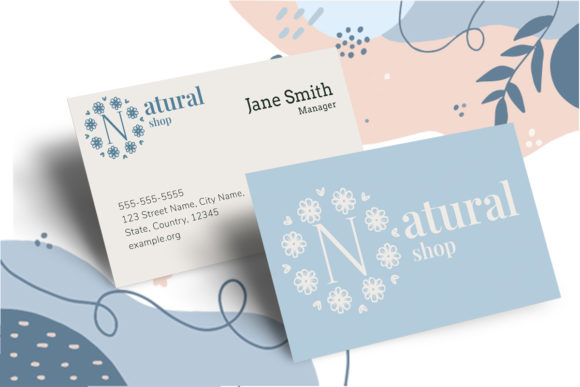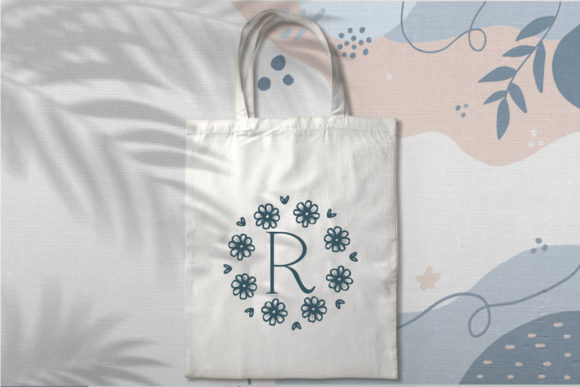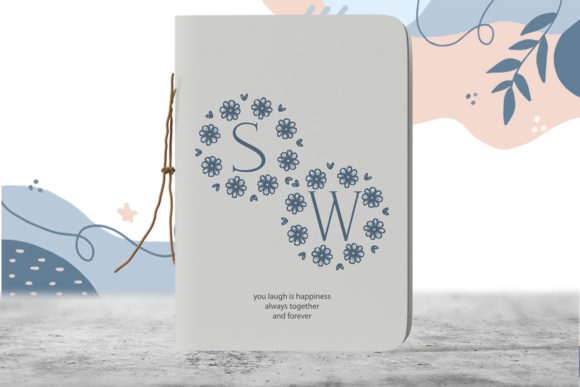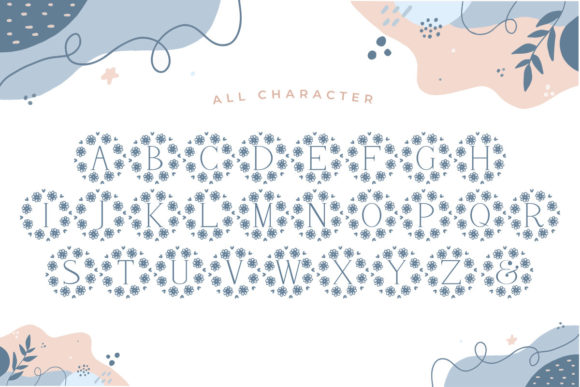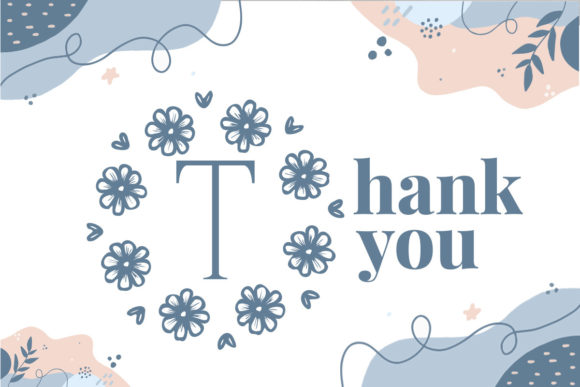
Introduction to Meraldine Monogram Font
Have you ever been scrolling through social media and stumbled upon a beautiful wedding invitation or a stunning greeting card that made you stop and smile? For many of us, it’s those small, creative moments that spark our imagination and inspire us to create something special. As designers, we’re always on the lookout for high-quality design resources that can elevate our projects and make them truly stand out.
That’s where the Meraldine Monogram Font comes in – a stunning, elegant decorative font that’s perfect for any creative project. With its lovely ornaments and authentic feel, this font is a valuable addition to any designer’s toolkit. Whether you’re working on a wedding invitation, a piece of stationery art, or a social media post, the Meraldine Monogram Font is sure to add a touch of sophistication and whimsy to your design.
Key Features of Meraldine Monogram Font
- High-quality design suitable for a creative project, offering a unique and elegant touch.
- Features a transparent background, allowing for easy customization and versatility in design applications.
Honest Review: Meraldine Monogram Font
I recently stumbled upon the Meraldine Monogram Font, and I must say it’s a great addition to any designer’s toolkit. This high-quality font is perfect for a creative project that requires a touch of elegance and sophistication.
Here are some of the things that I love about the Meraldine Monogram Font:
- ✨ High-quality design that looks great on both digital and print materials
- ✨ Versatile and can be used for a wide range of creative projects
- ⚠️ Limited character set, which may not be ideal for longer texts
- ⚠️ Not suitable for projects that require a lot of customization
Overall, I’m really impressed with the Meraldine Monogram Font. It’s a great addition to any designer’s toolkit, and I would definitely recommend it for any creative project that requires a touch of elegance and sophistication.
Common Use Cases for Meraldine Monogram Font
The Meraldine Monogram Font is ideal for a variety of creative projects, including business cards, invitations, and social media graphics. Its elegant and sophisticated design makes it perfect for branding and marketing materials.